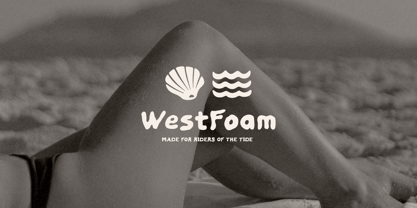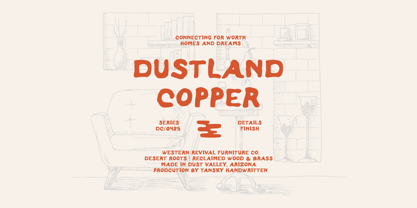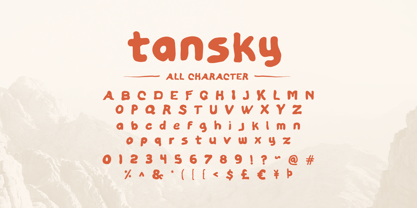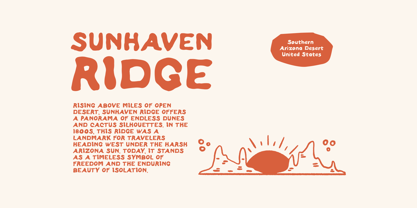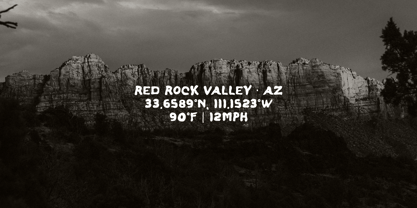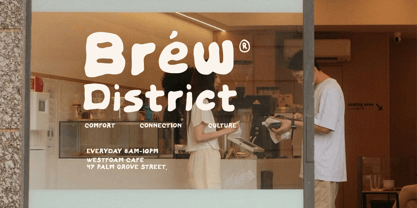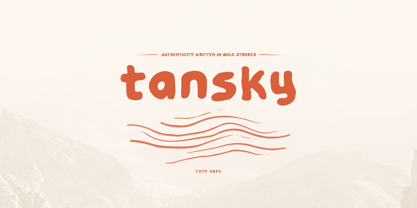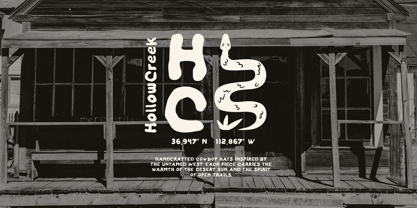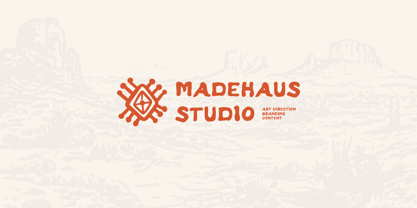
Tansky
by Gholib Tammami
The Tansky Font Family was designed by Gholib Tammami and published by Gholib Tammami. Tansky contains 1 styles. More about this family
Tansky is a bold, handwritten font inspired by the beauty of natural imperfection. Its organic flow and strong texture bring a striking, authentic touch to modern designs. With a unique balance of elegance and ruggedness, it evokes a sense of warmth and emotion, making it ideal for creatives who want to add a handcrafted, personal feel to their work. Perfect for logos, branding, invitations, posters, and any project that requires a touch of human artistry and individuality.